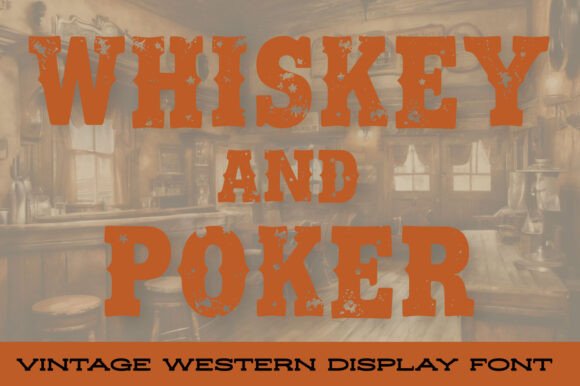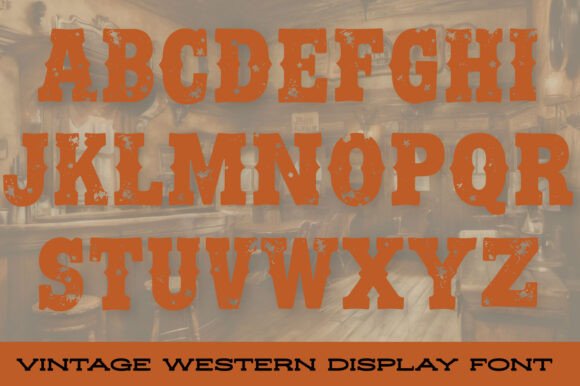
Introduction to Rusty Outlaw Font
Ride into the wild frontier with Rusty Outlaw, a bold and weathered Old West-inspired stamp-style font.
Its rugged, distressed details capture the grit and spirit of a bygone era, perfect for adding a touch of outlaw charm to your designs Whether youโre crafting vintage posters, rustic logos, or western-themed branding, Rusty Outlaw delivers a strong, hand-stamped look that stands out.
Key Features of Rusty Outlaw Font
Why Choose Rusty Outlaw Font?
Rusty Outlaw Font offers exceptional quality and versatility, making it a valuable addition to your design toolkit. Whether you’re creating for personal projects or commercial use, Rusty Outlaw Font delivers professional results.